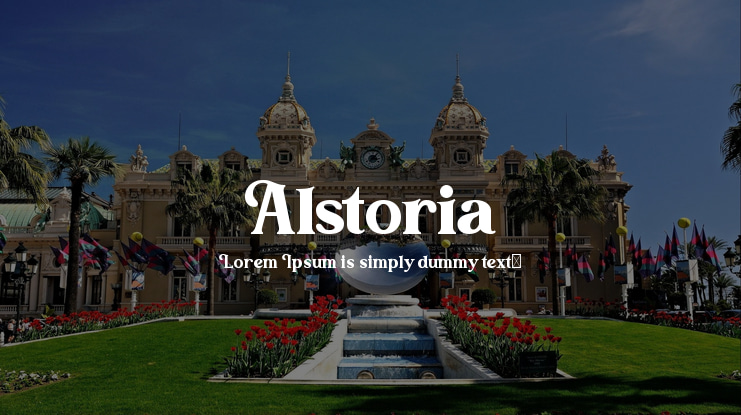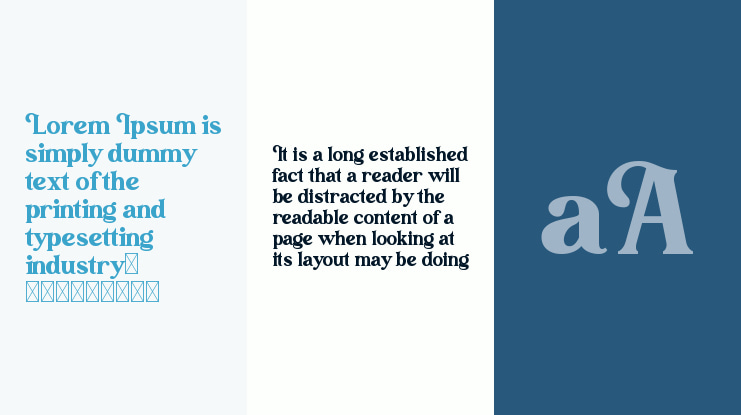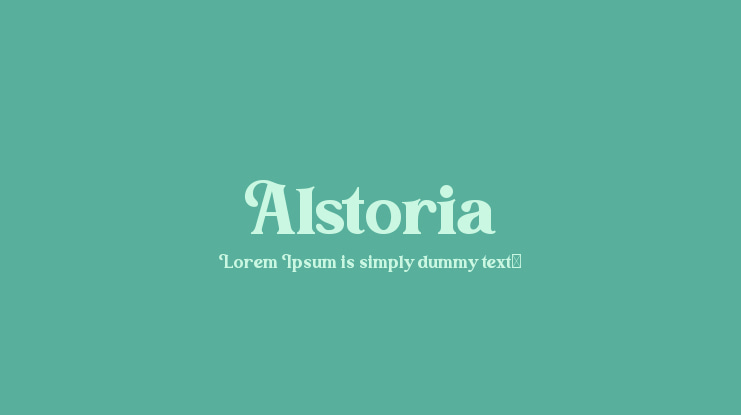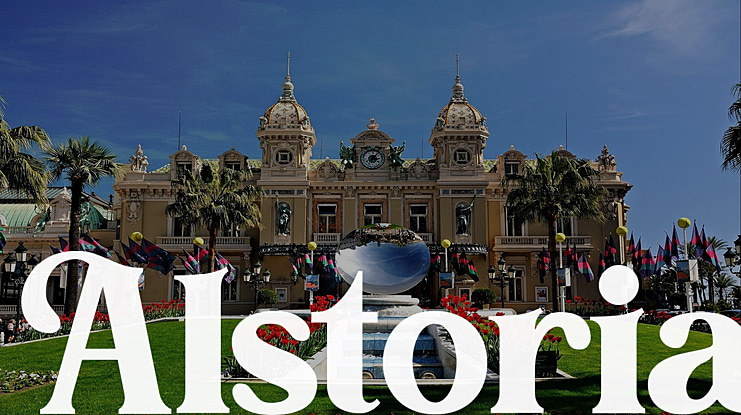
Alstoria Font
Bangkit Tri Setiadi & Amir Subqi Setiaji
Alstoria is a Bold Display Serif font. Suitable for your projects like branding, packaging, printing, header, and many more. Contains 320+ glyphs and 10 ligatures. This font also contains many swash alternates option to play. Works well for vintage and modern style like you see in our preview images.